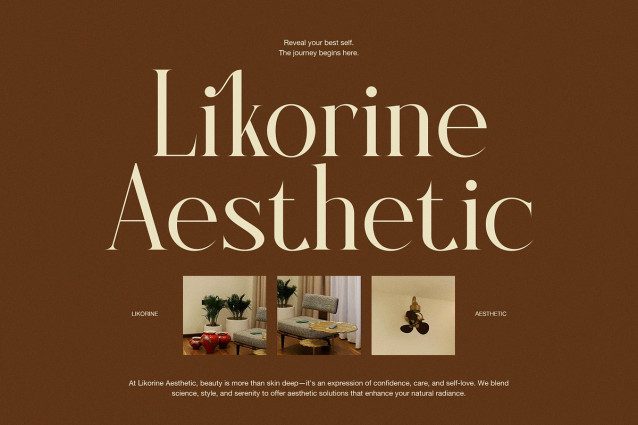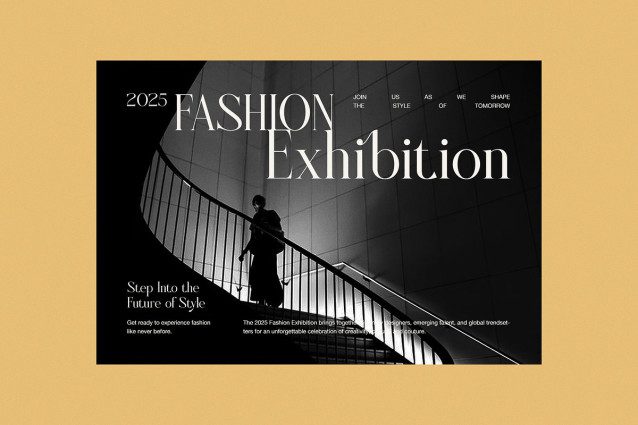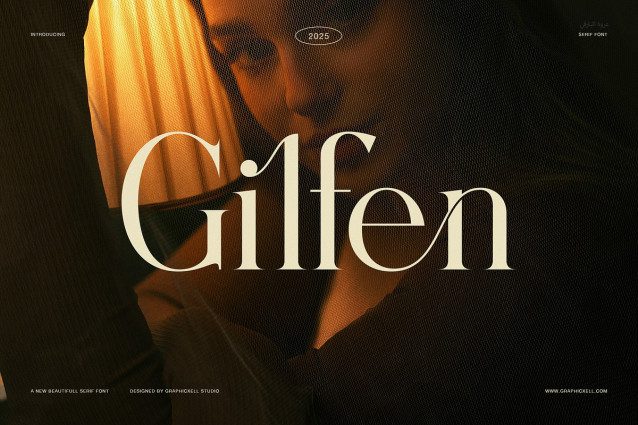
Gilfen Font
Gilfen Font is a soft and stylish typeface made for designers who value timeless design. It mixes modern simplicity with classic beauty, creating letters that look smooth, graceful, and easy to read. Because of its gentle shape and elegant flow, this font is ideal for logos, invitations, magazines, and packaging.
Every letter in Gilfen has a clean form and calm balance. The light contrast between strokes gives it charm and warmth. As a result, your text feels natural and polished at once. In addition, the clear spacing and rounded edges help each word stand out, so your message stays elegant without feeling heavy.
Gilfen also includes uppercase and lowercase letters, numbers, punctuation, and alternates. It comes with simple ligatures and supports many languages, which makes it flexible for designers around the world. Therefore, you can use it for both modern and classic projects with equal success.